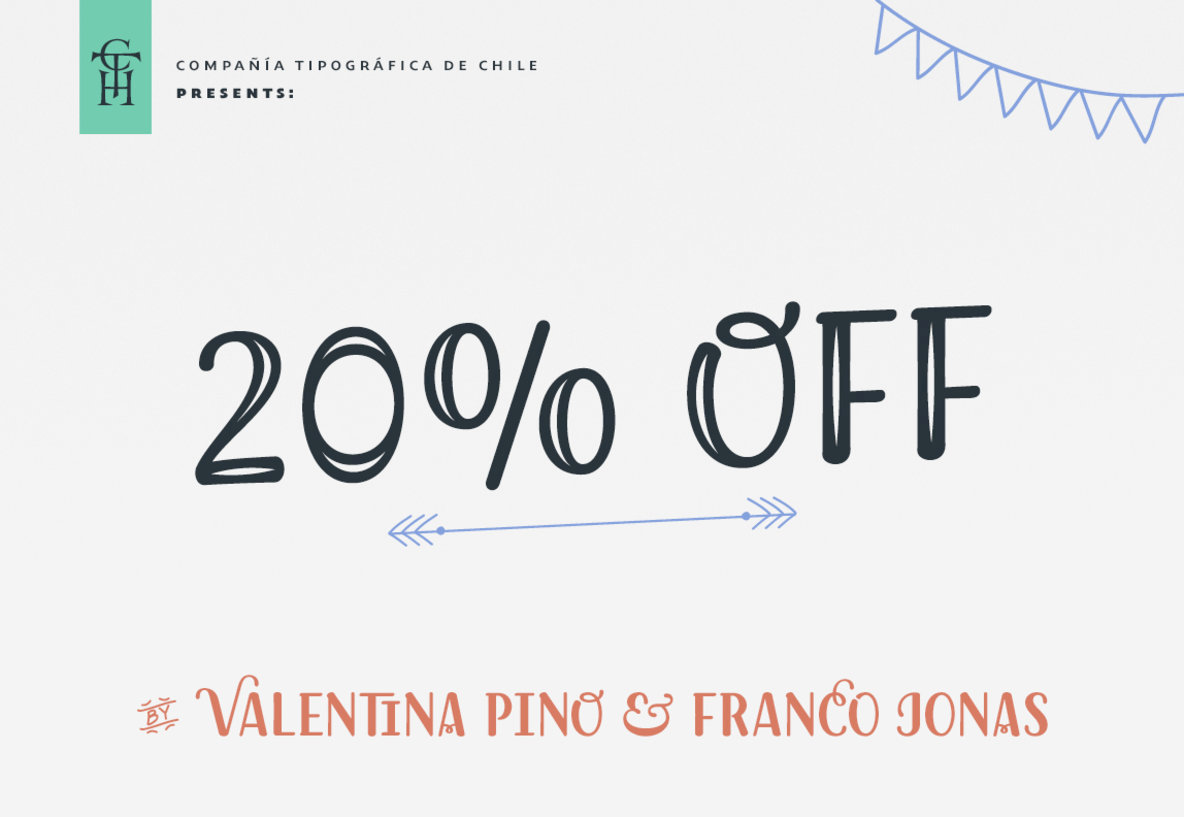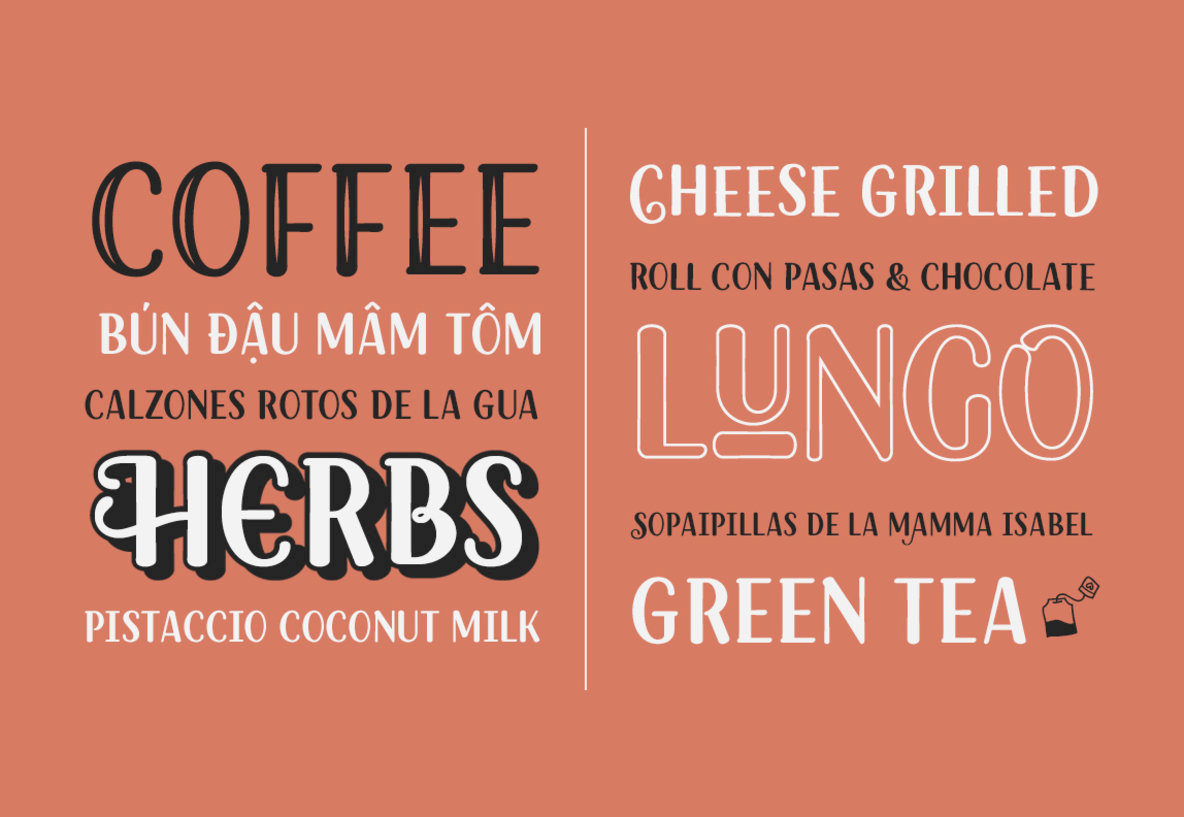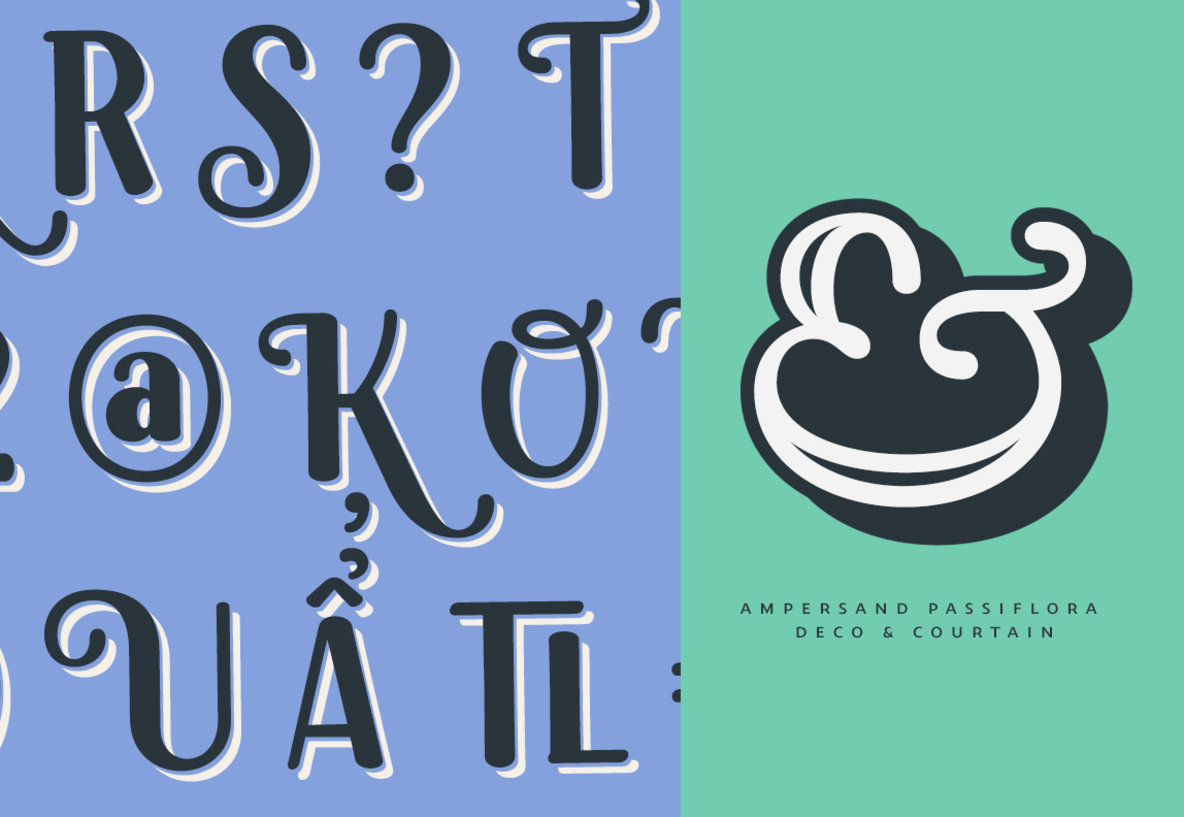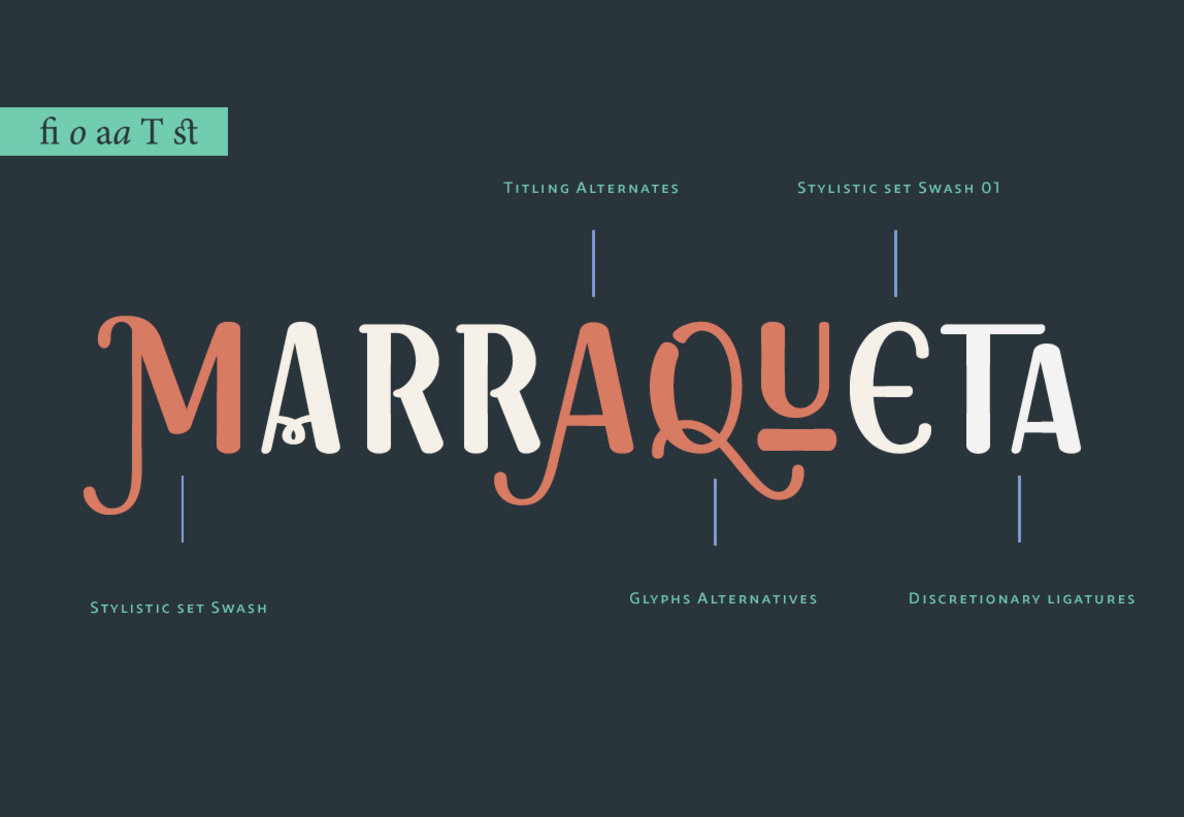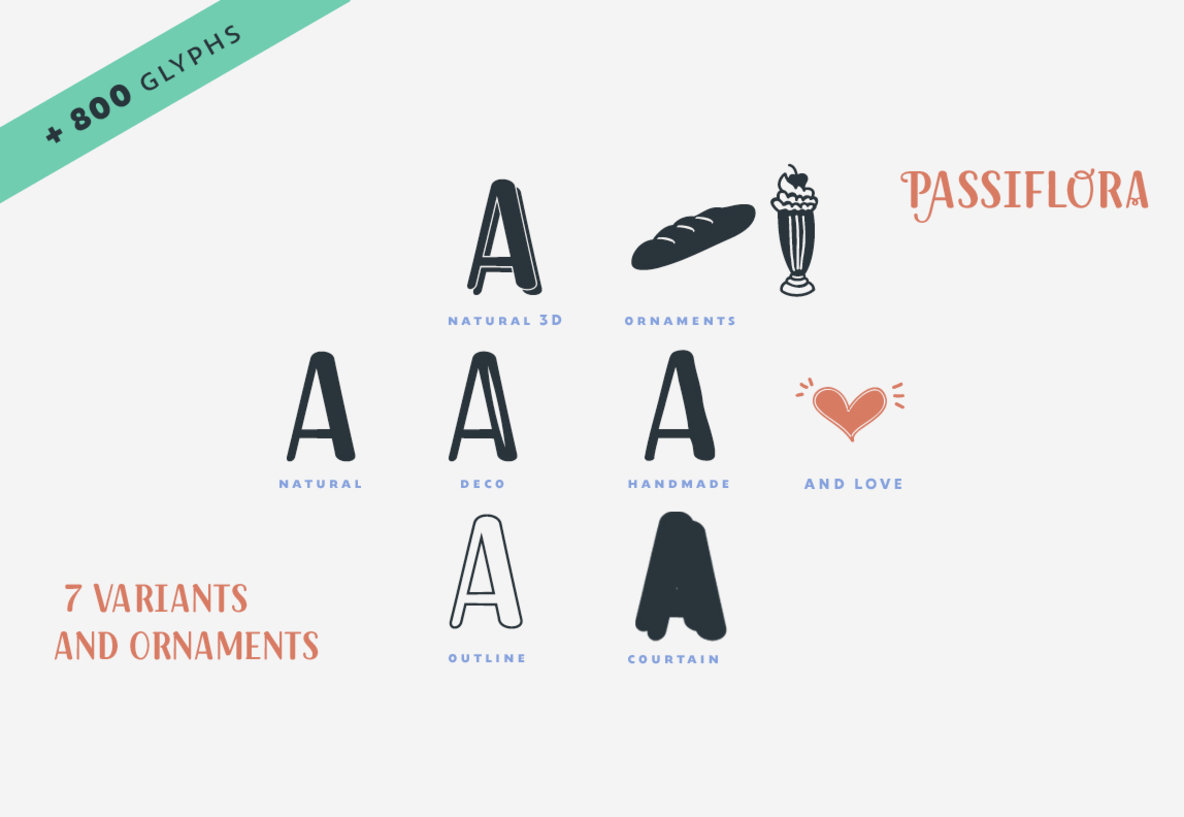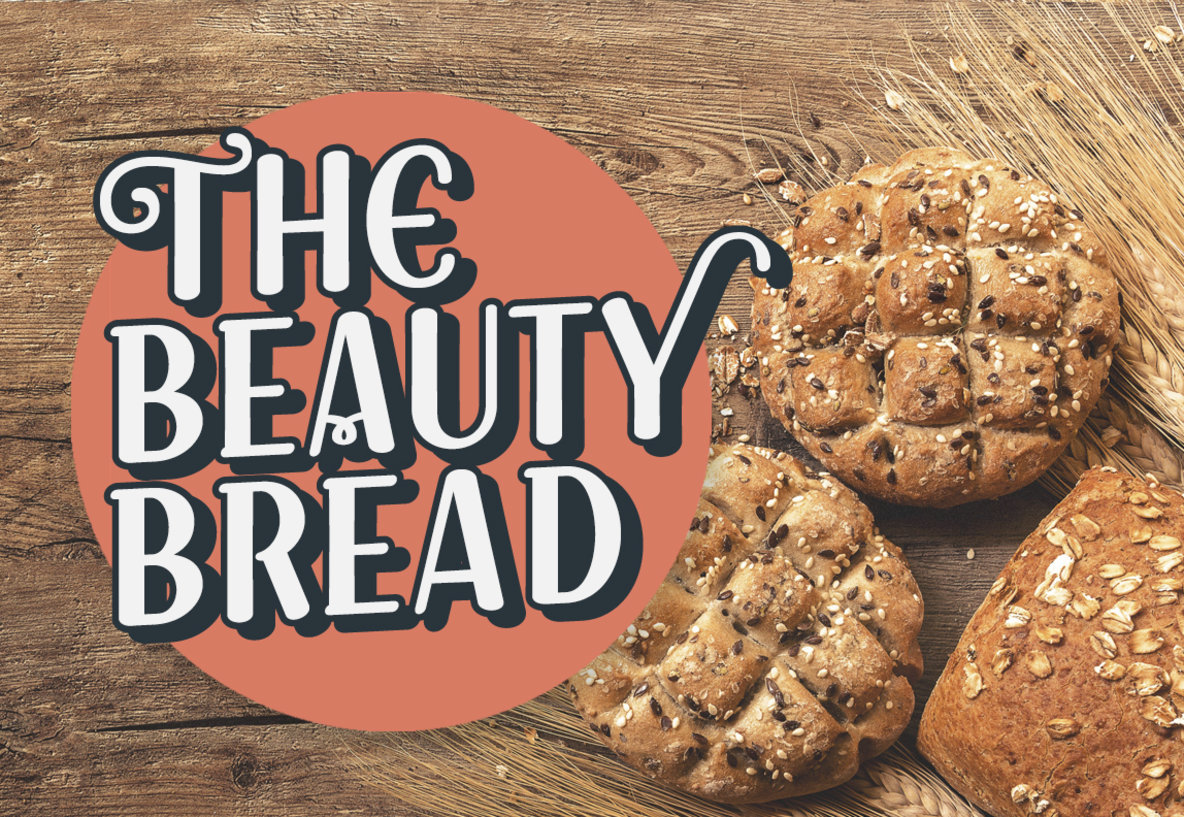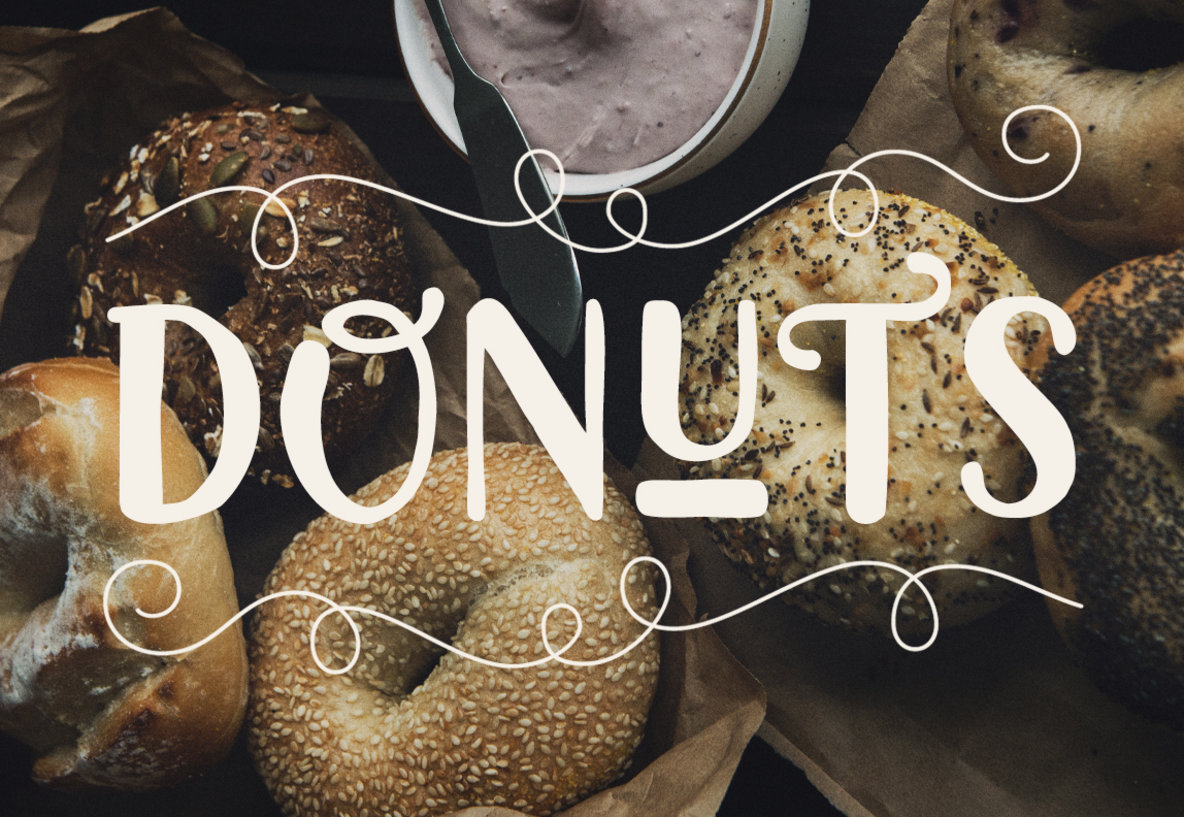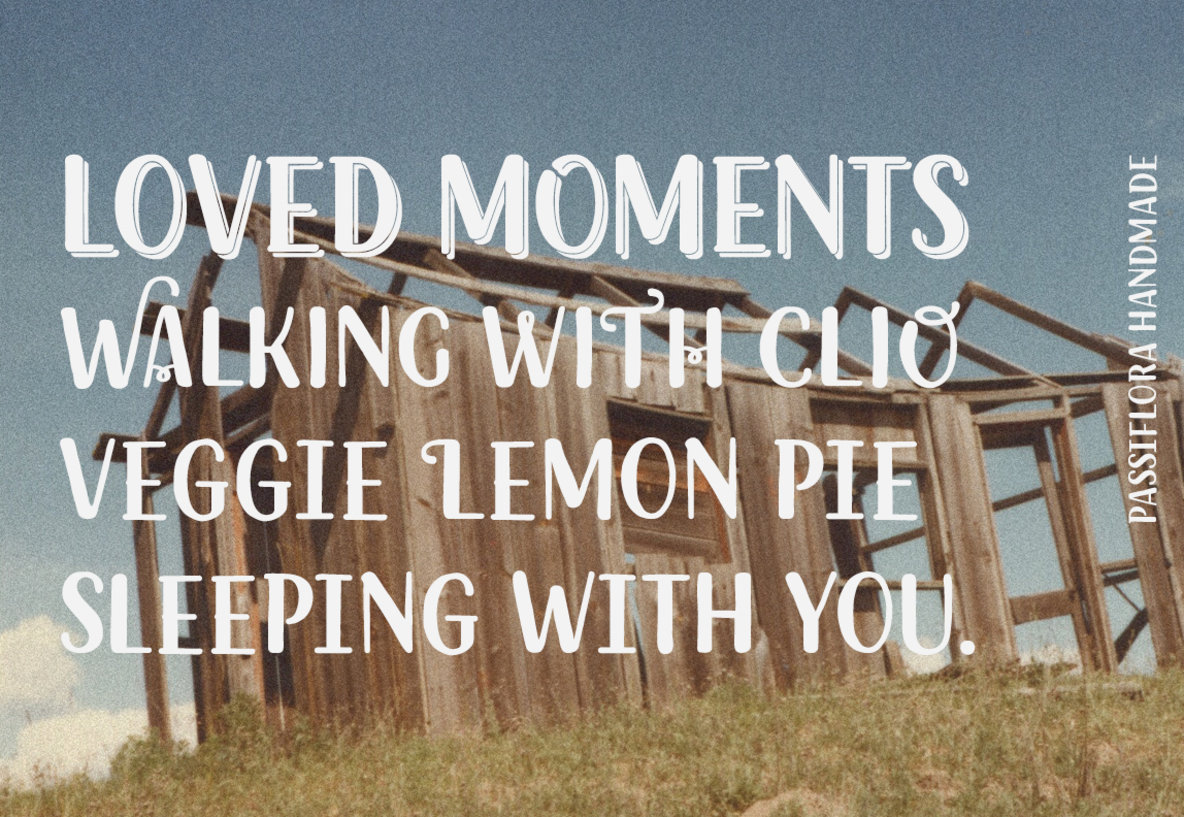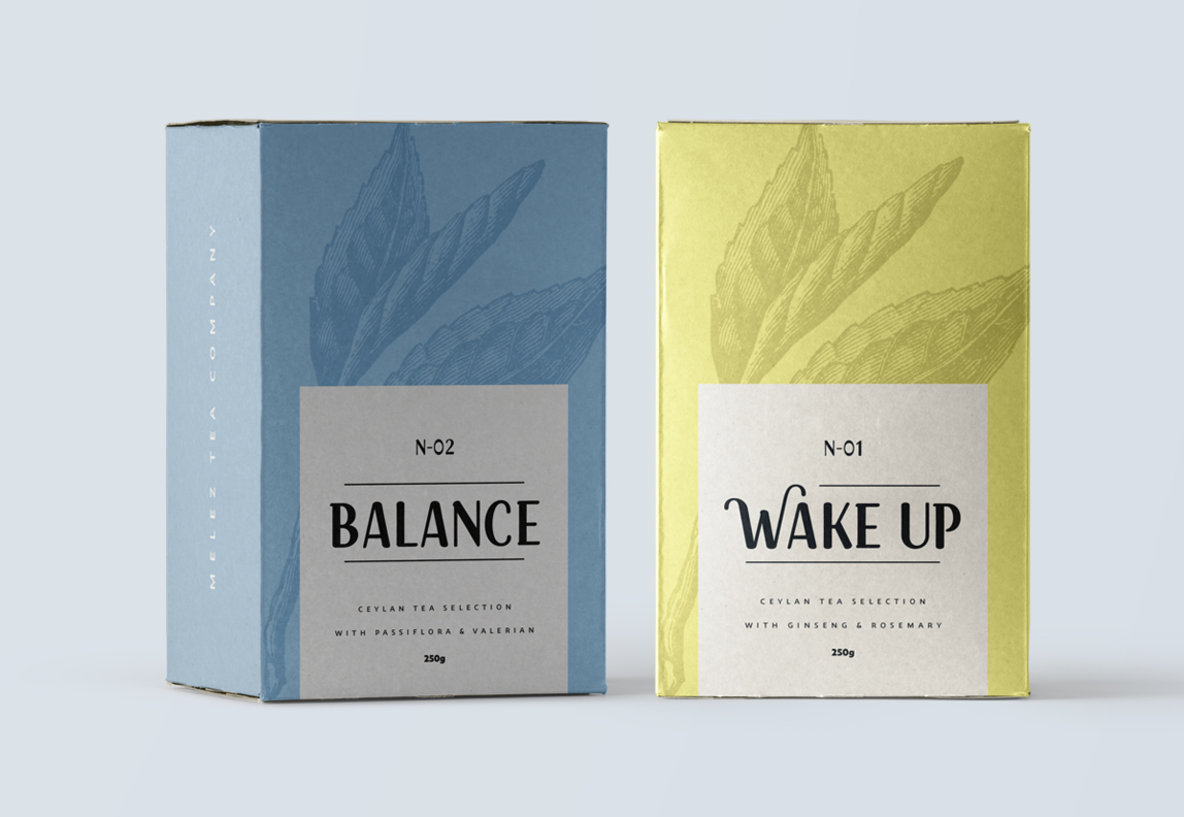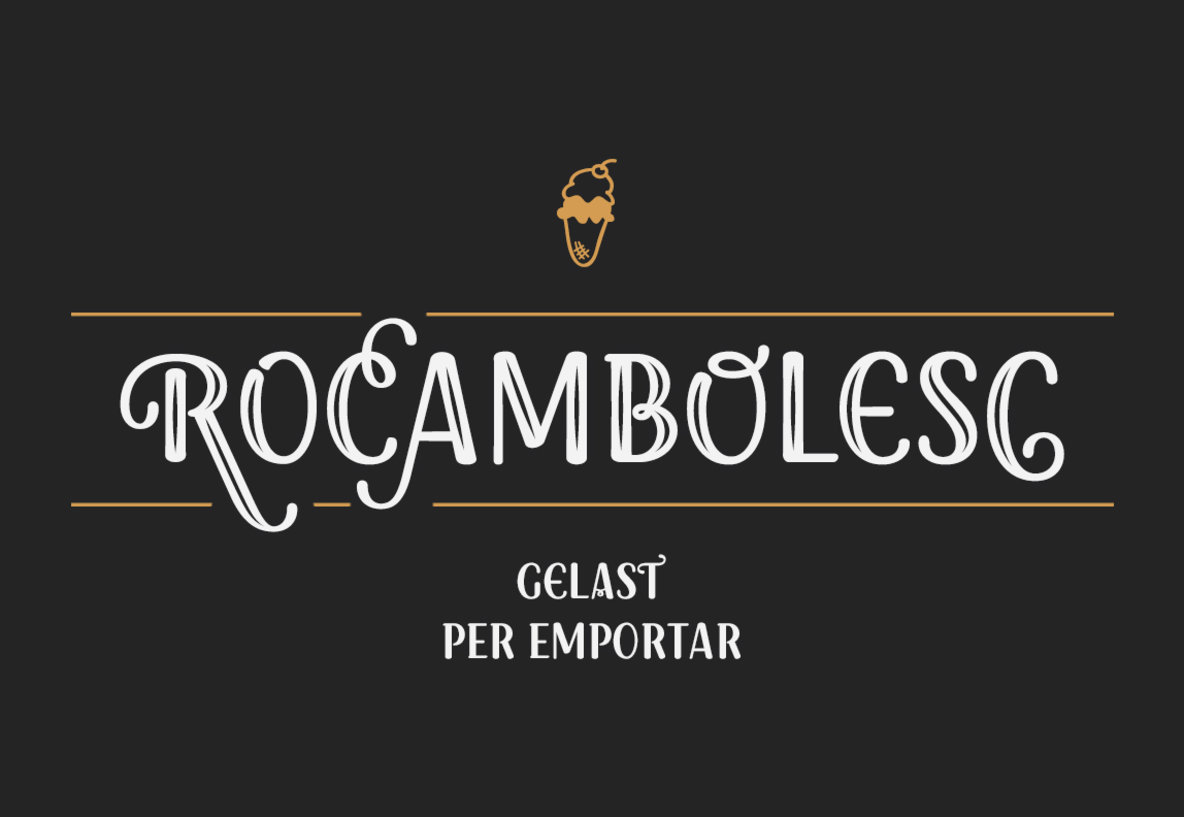
Passiflora Font
Drawing inspiration from the rich architectural facades and signage of 20th-century Santiago, Passiflora stands as a unicase display font characterized by its elegant shapes and fluid swashes. Designed by Valentina Pino Faúndes and Franco Jonas Hernández, this typeface captures a sense of hand-drawn charm and vibrant aesthetics, ideal for creating eye-catching visuals. Features: Perfect for adding flair to book covers, packaging, posters, or titles, Passiflora provides a versatile typographic solution for projects that require both creativity and sophistication.Passiflora: A Unicase Display Font of Elegance